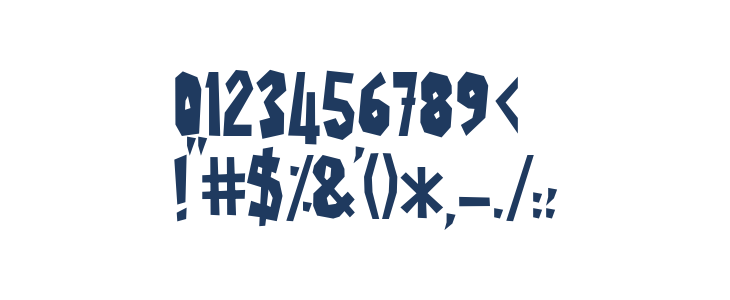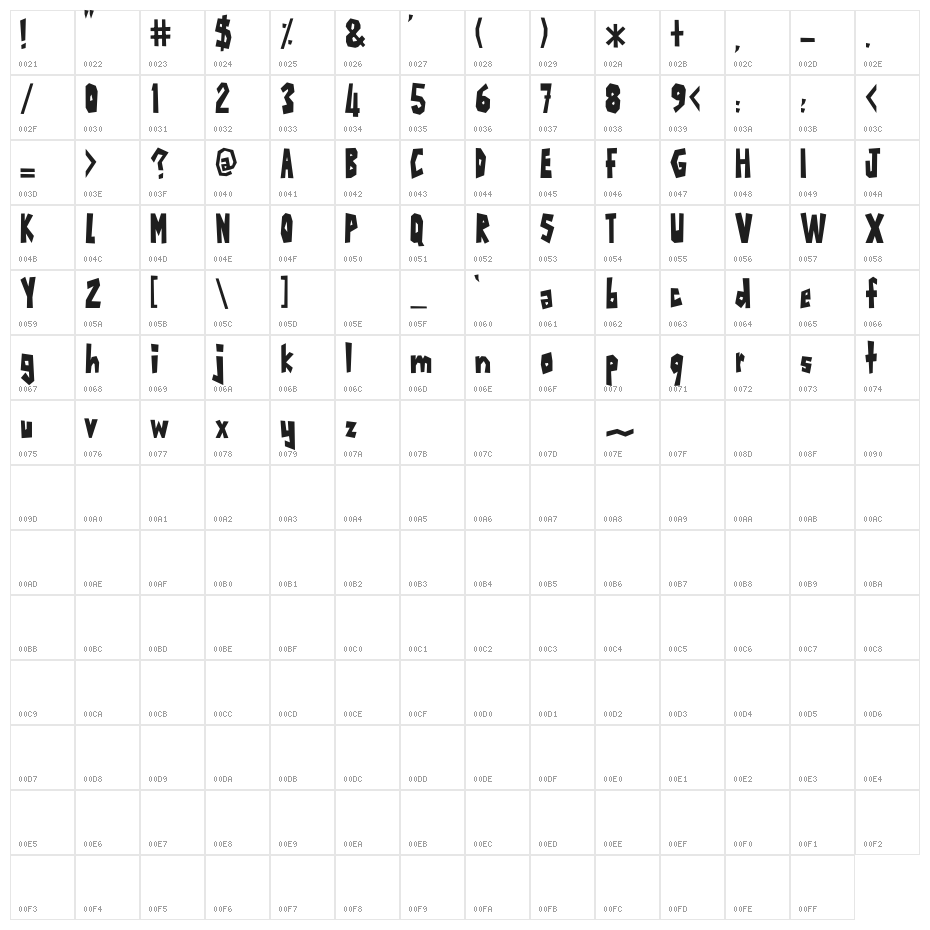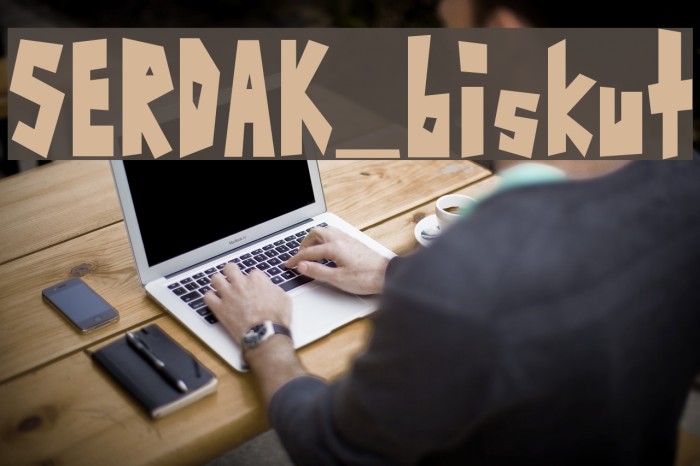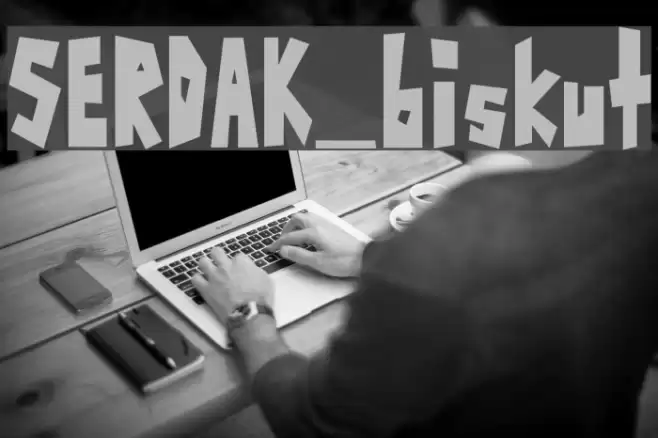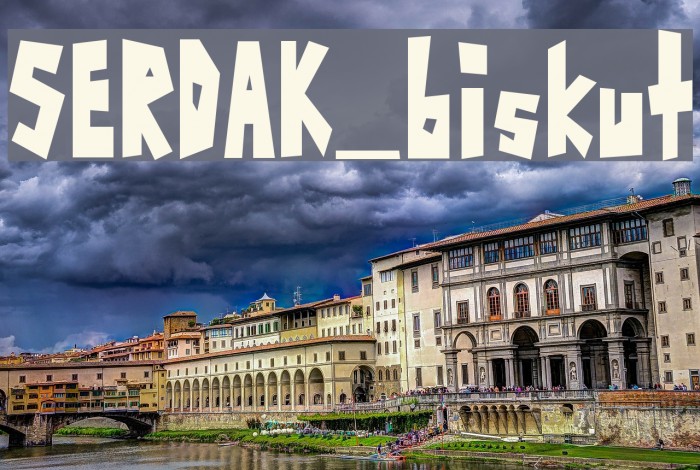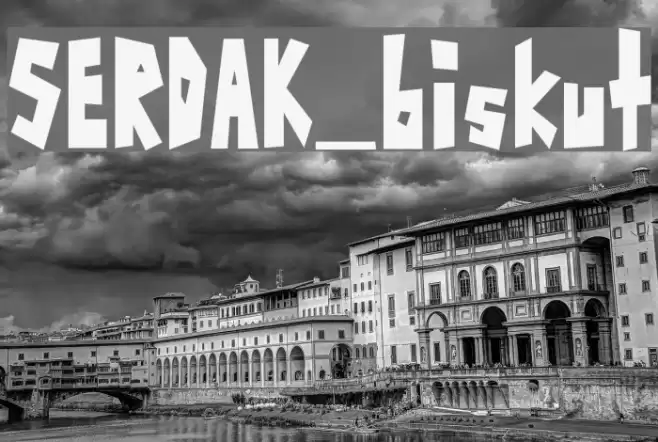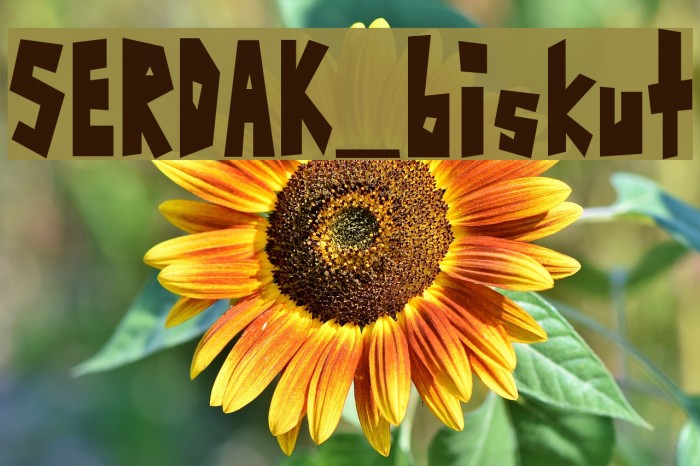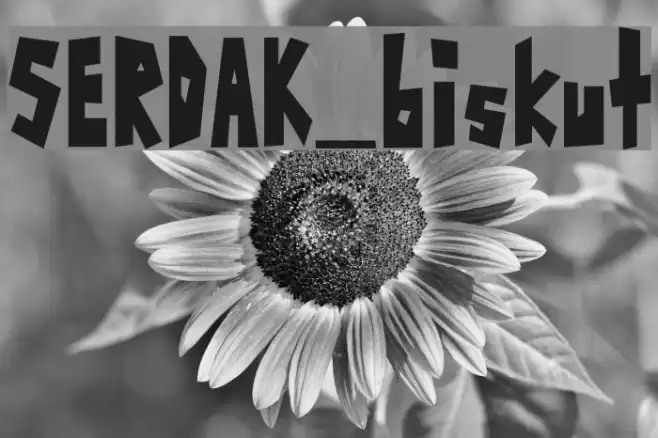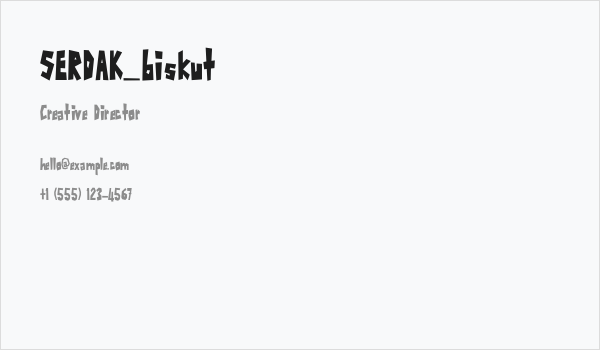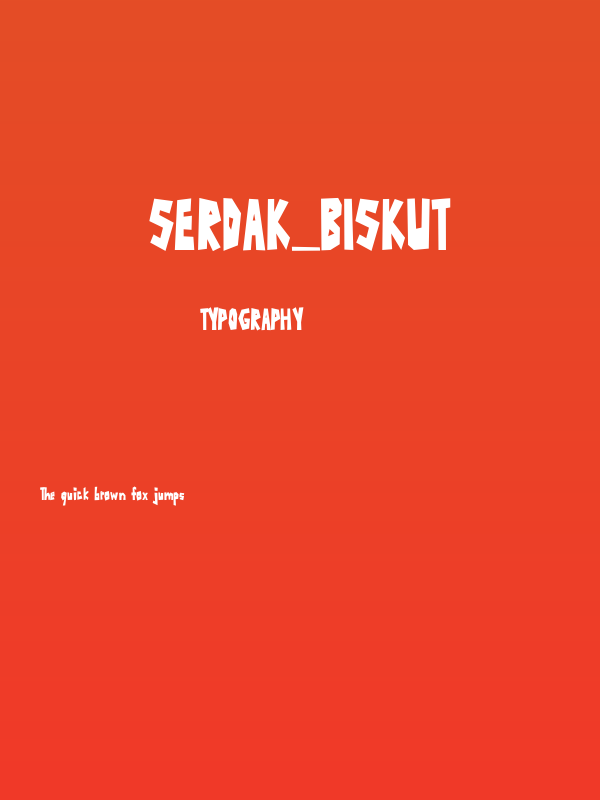
SERDAK_biskut Font
SERDAK_biskut Description
This font features a bold and playful design with a distinctly angular and geometric style. Each character is crafted with sharp edges and varying widths, creating a dynamic and energetic appearance. The uppercase letters are particularly striking, with a blocky and robust form that commands attention. The lowercase letters maintain the same angular aesthetic, offering a cohesive look across the typeface. Numbers and special characters are equally bold, ensuring consistency throughout. This font's unique style makes it ideal for projects that require a strong visual impact.